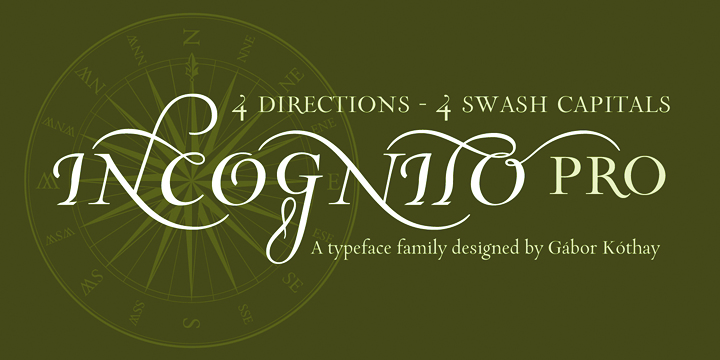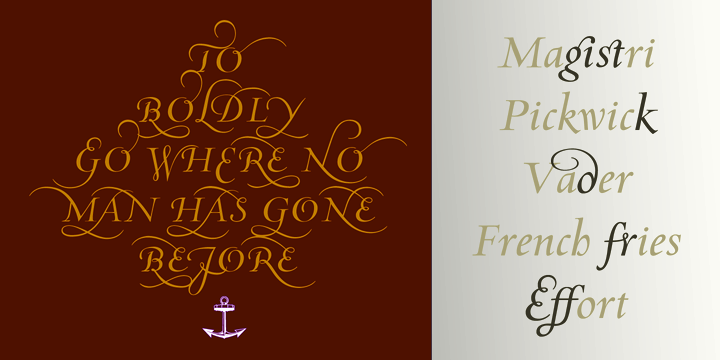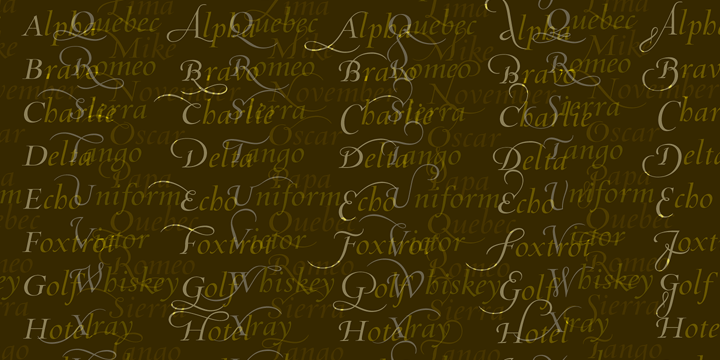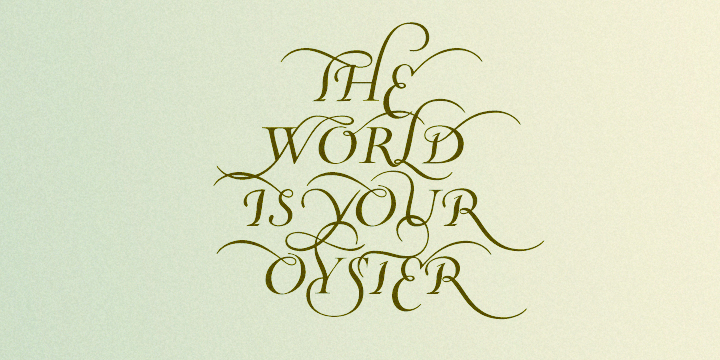
Incognito Pro
Incognito Pro Font
Incognito Pro Font Family
Years ago Gábor Kóthay discovered a rare book containing historic maps and various cartographic signs. Gábor had been quite an explorer as a child, and this antique book enabled him relive his love for the term “Terra Incognita” or “unknown land”. Working on the Incognito typeface was a typographic – and topographic – journey into his Hungarian past and the folklore and history of another time. The inspiration for the names for the Incognito family come from map titles and captions. Specifically, the names for the swash variations come from the Latin terms for the points of a compass.